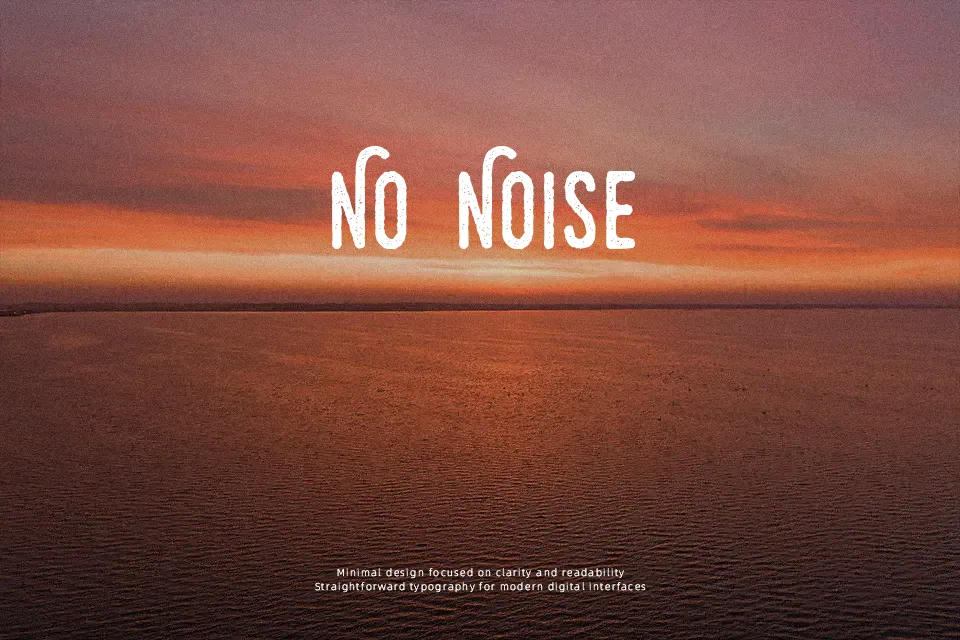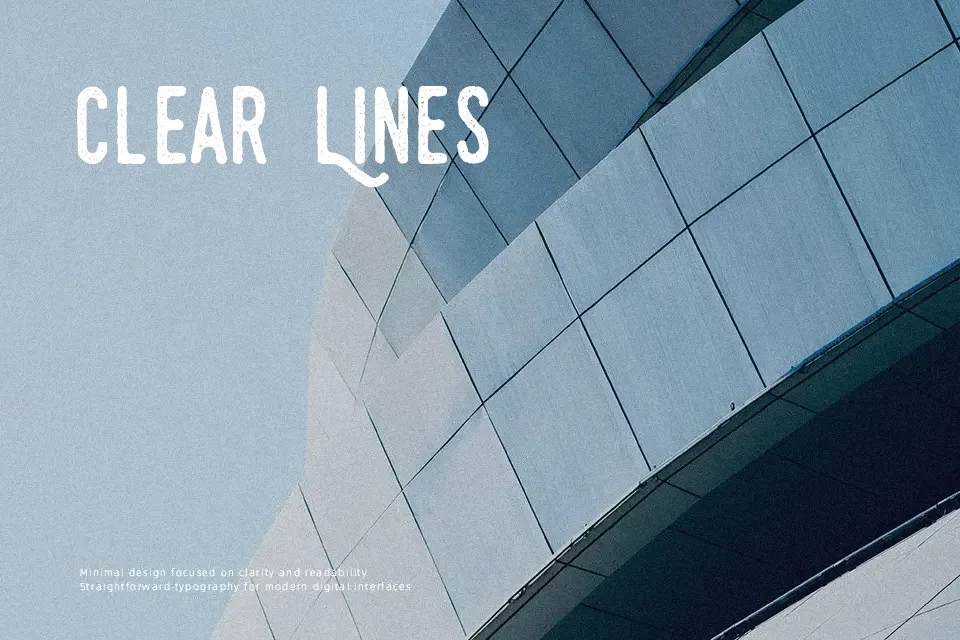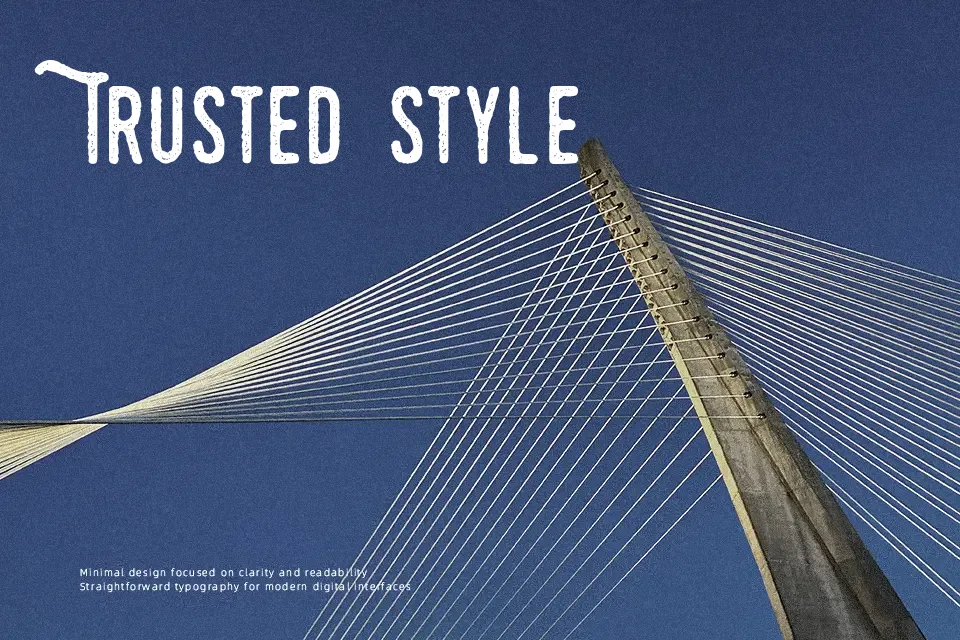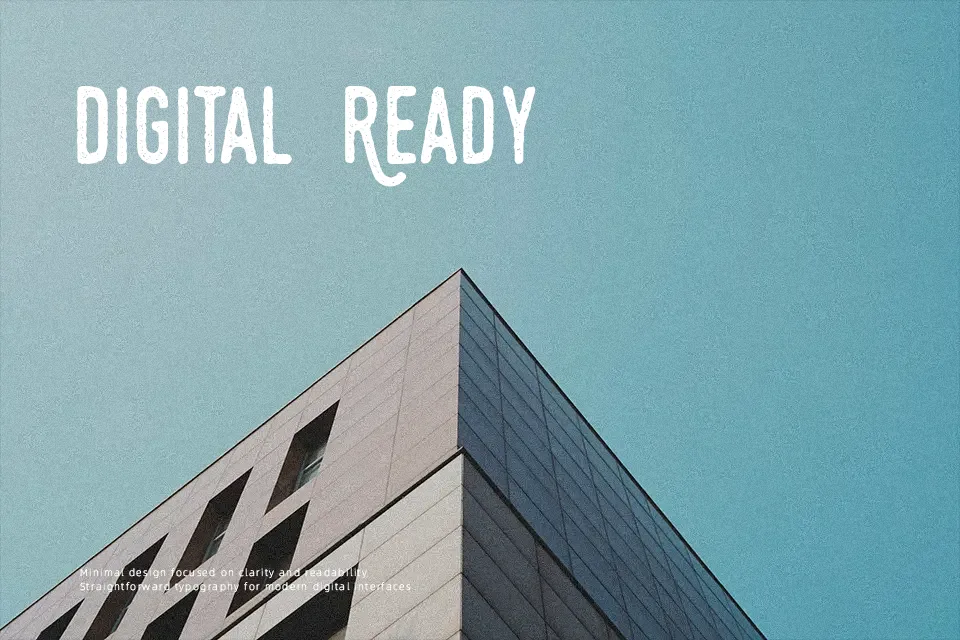
Swistblnk Monthoers Font
Swistblnk Monthoers Font works best as prominent display lettering, using sturdy, mostly upright forms with visibly distressed edges and irregular texture. Its strokes appear broadly consistent in weight, while the weathered treatment gives each character a rougher silhouette than a clean sans serif. The alphabet includes both uppercase and lowercase forms alongside numerals, but the decorative surface is the main visual feature. Spacing feels most effective when the type is given room in a headline or short wordmark. The texture adds character at large sizes; in smaller captions or dense settings, those broken details can make the letterforms harder to scan.
Best For: vintage poster headlines,apparel graphics,product packaging,restaurant signage
Perfect for advertising, branding, and headline, with a bold and decorative style.